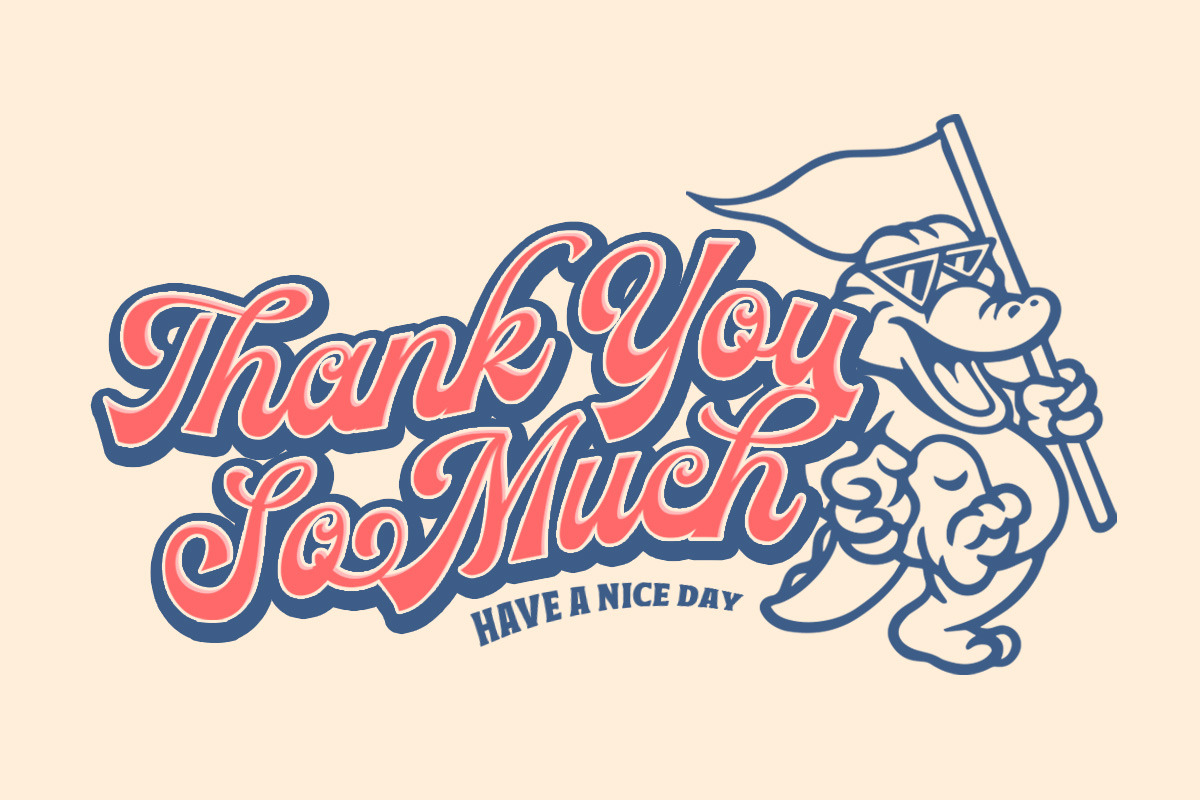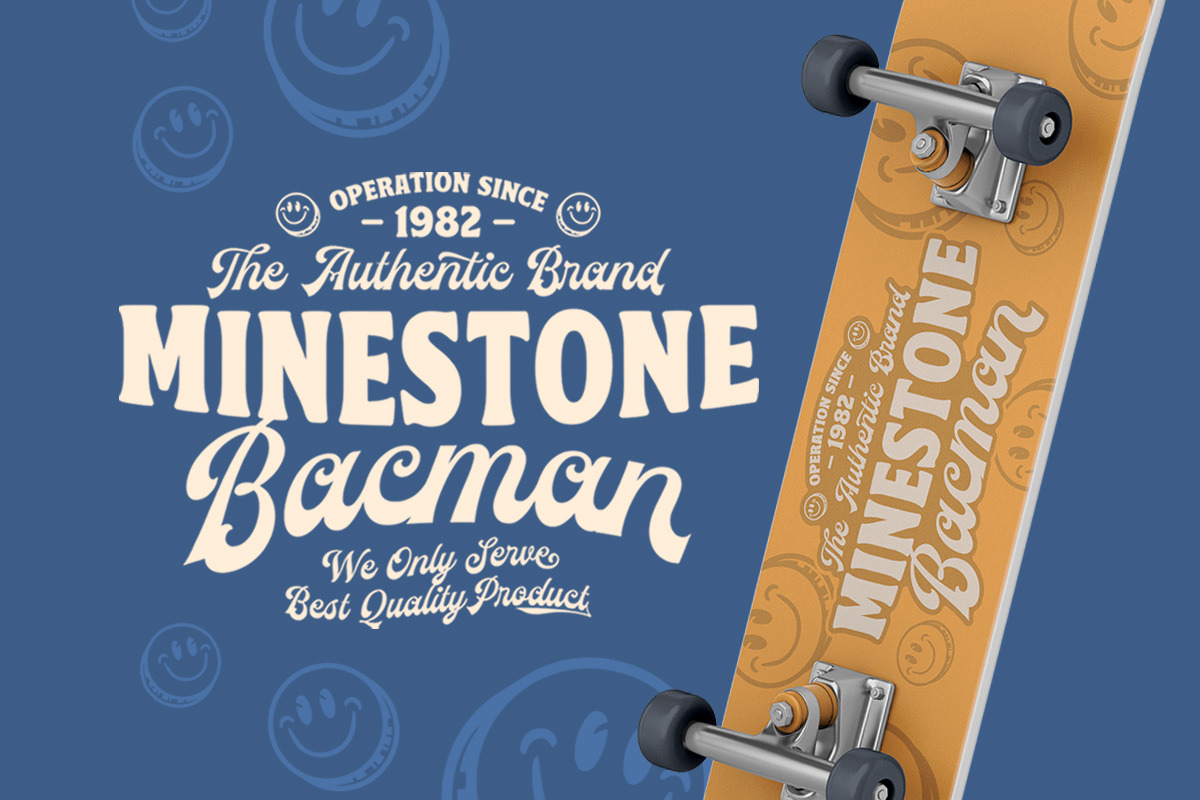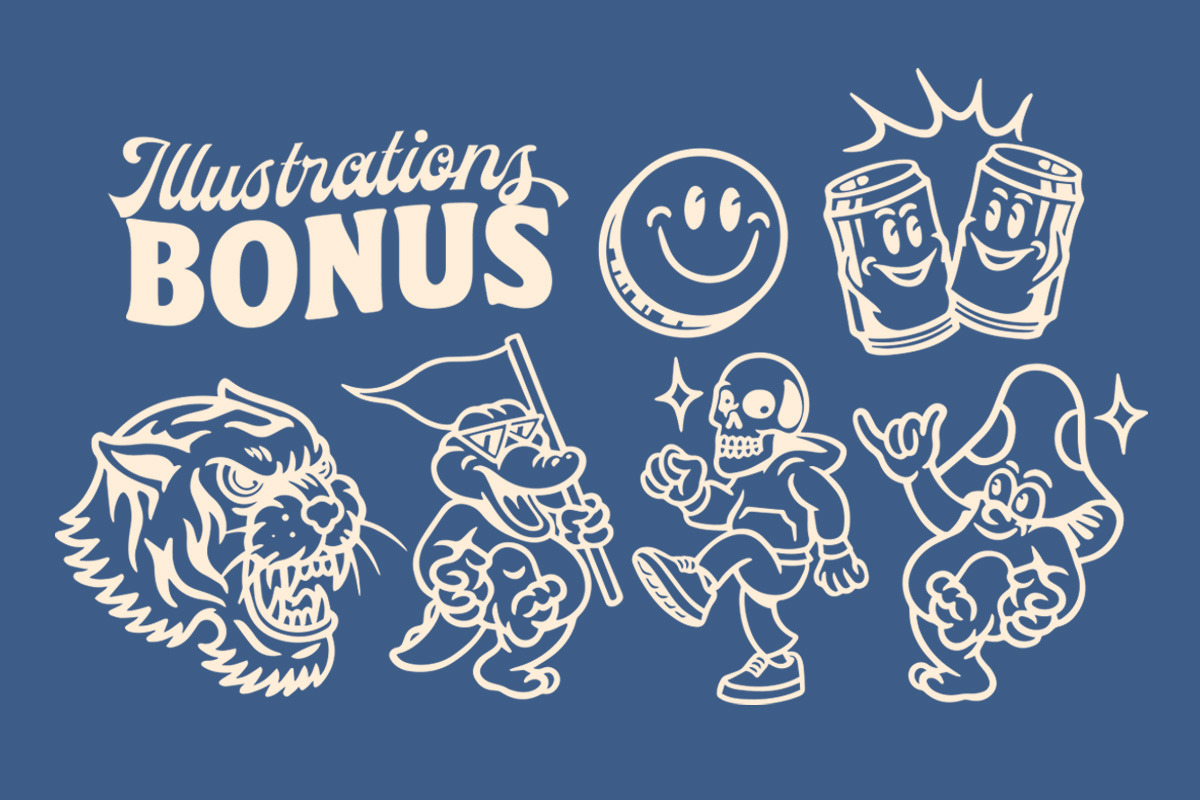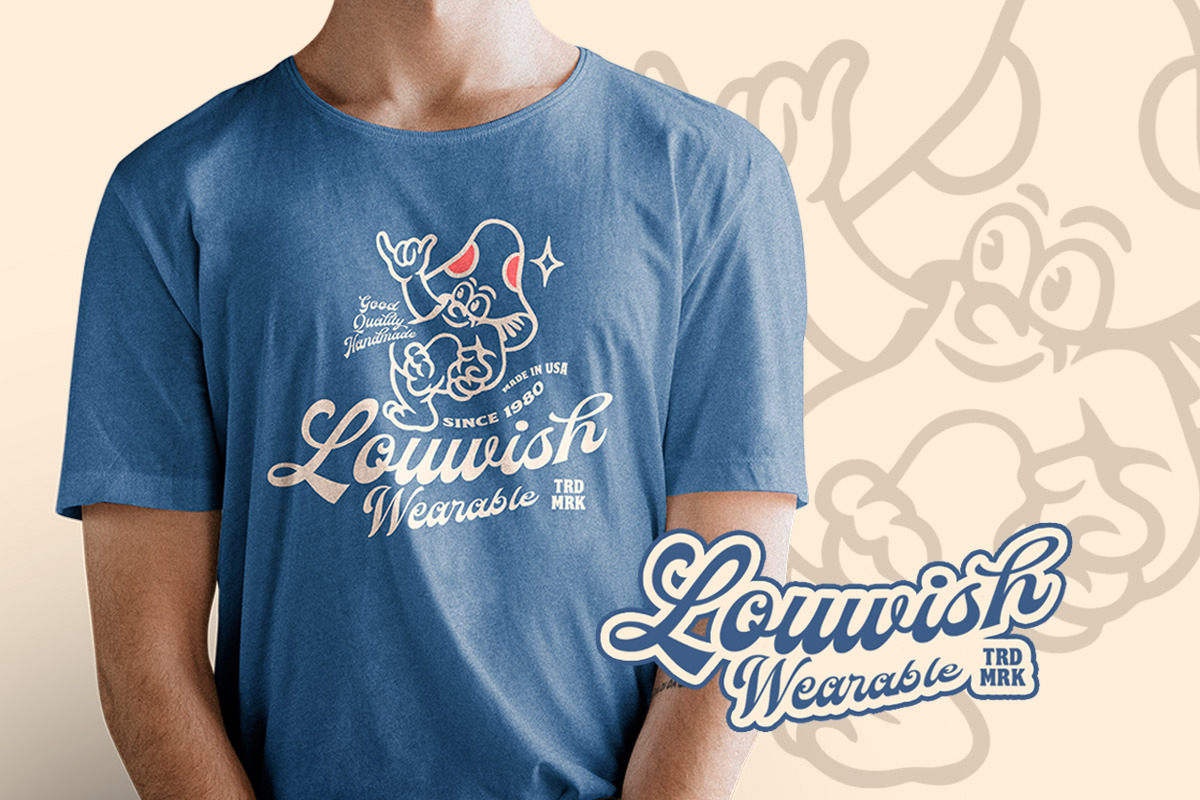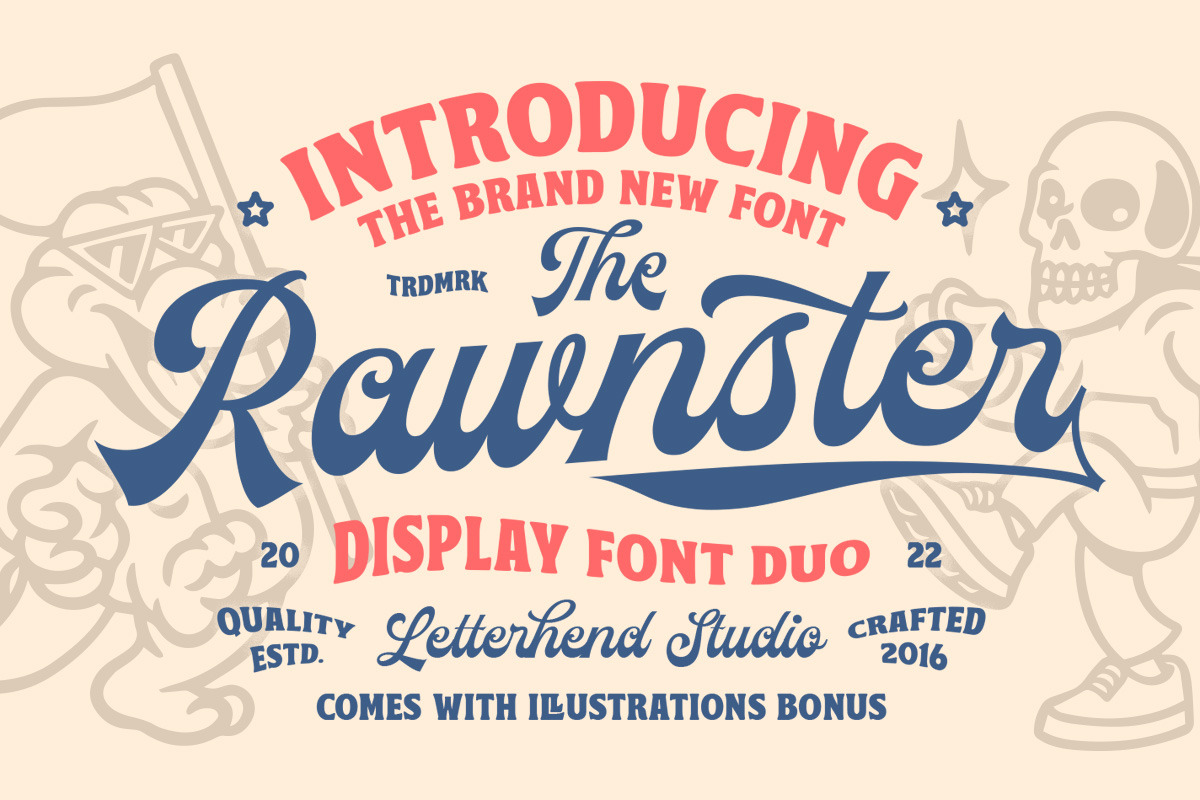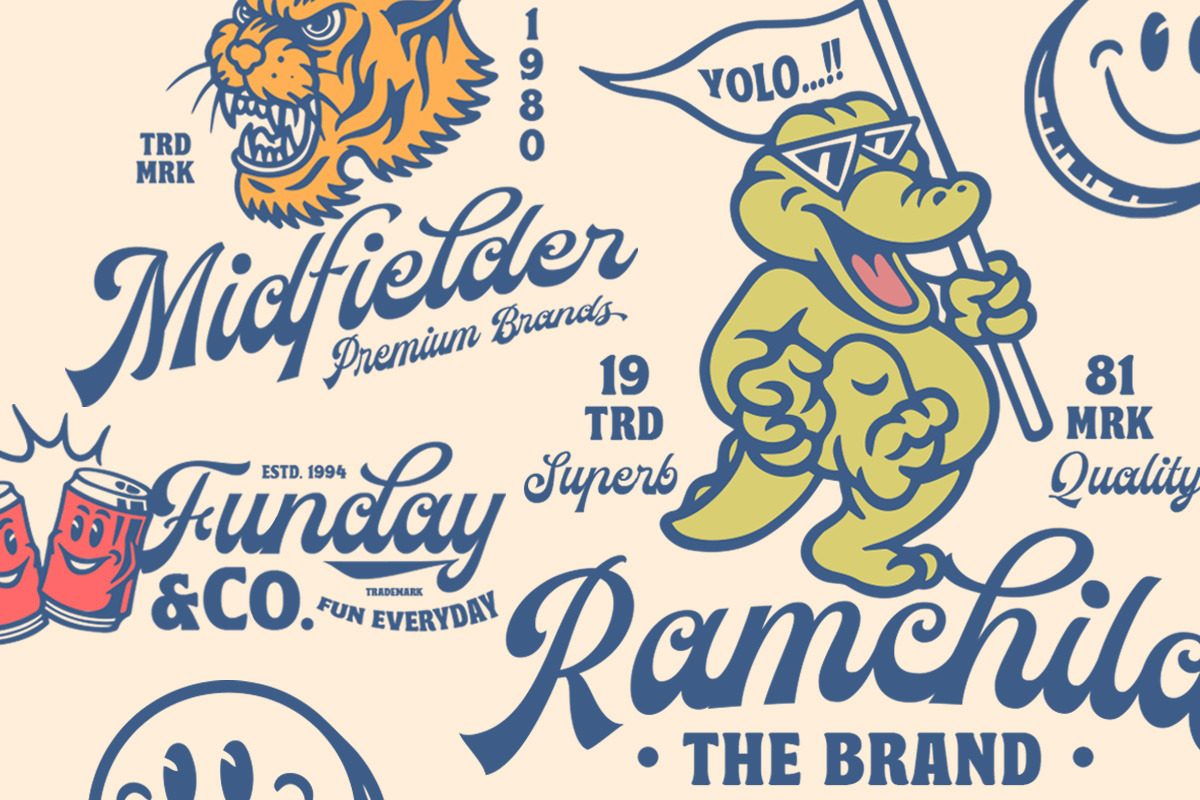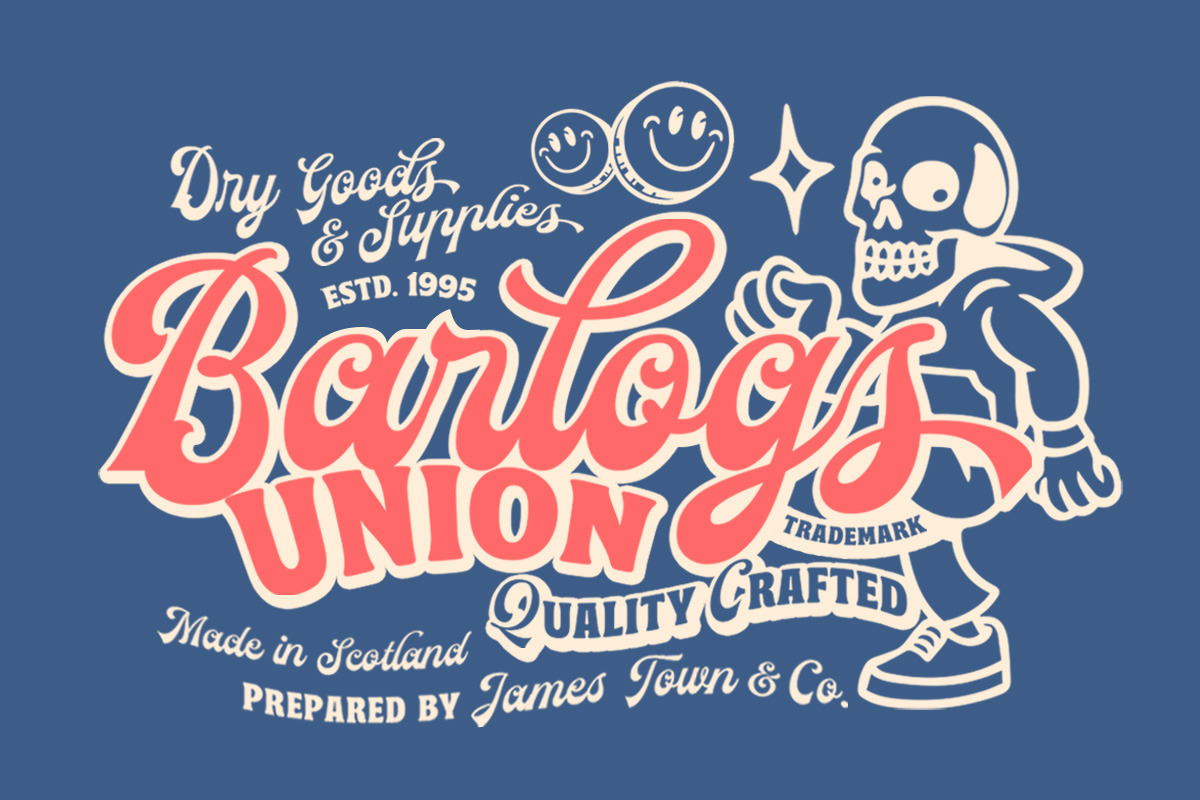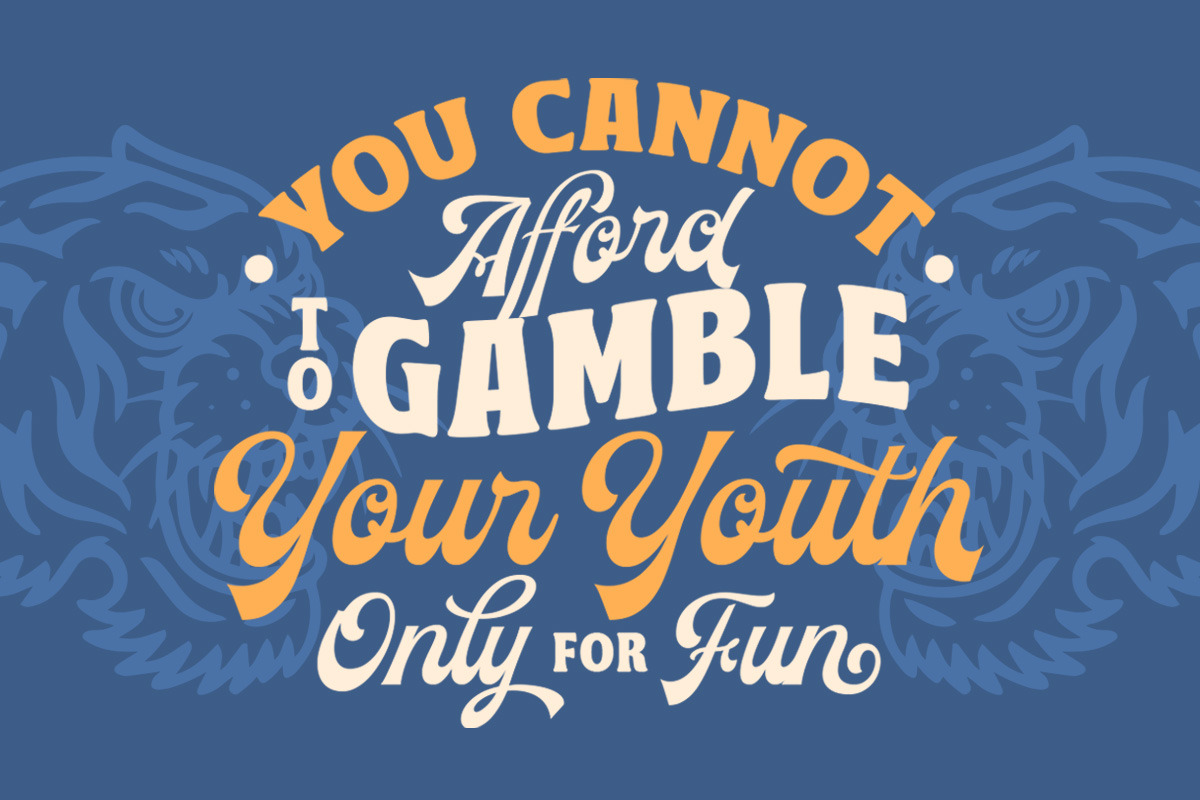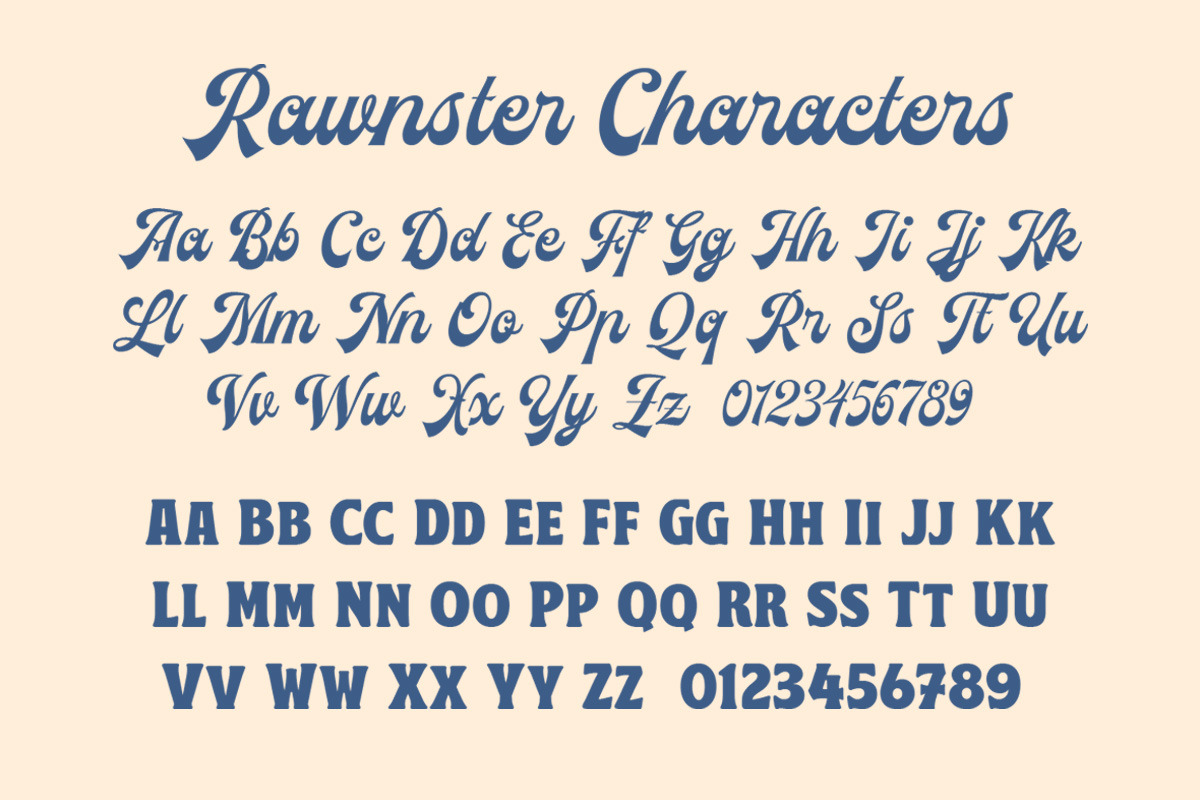
The Rawnster Font Duo - With Bonus!
Introducing, The Rawnster Font Duo ! A pair of font with a touch of vintage look and feel. You will also get several retro cartoon character as addition to your project, great to use as t-shirt illustration!
This font duo is also perfectly made to be applied especially in logo, headline, signage and the other various formal forms such as invitations, labels, logos, magazines, books, greeting / wedding cards, packaging, fashion, make up, stationery, novels, labels or any type of advertising purpose.
- Script and Serif
- alternates / swashes and ligatures
- 6 Retro Cartoon Illustrations